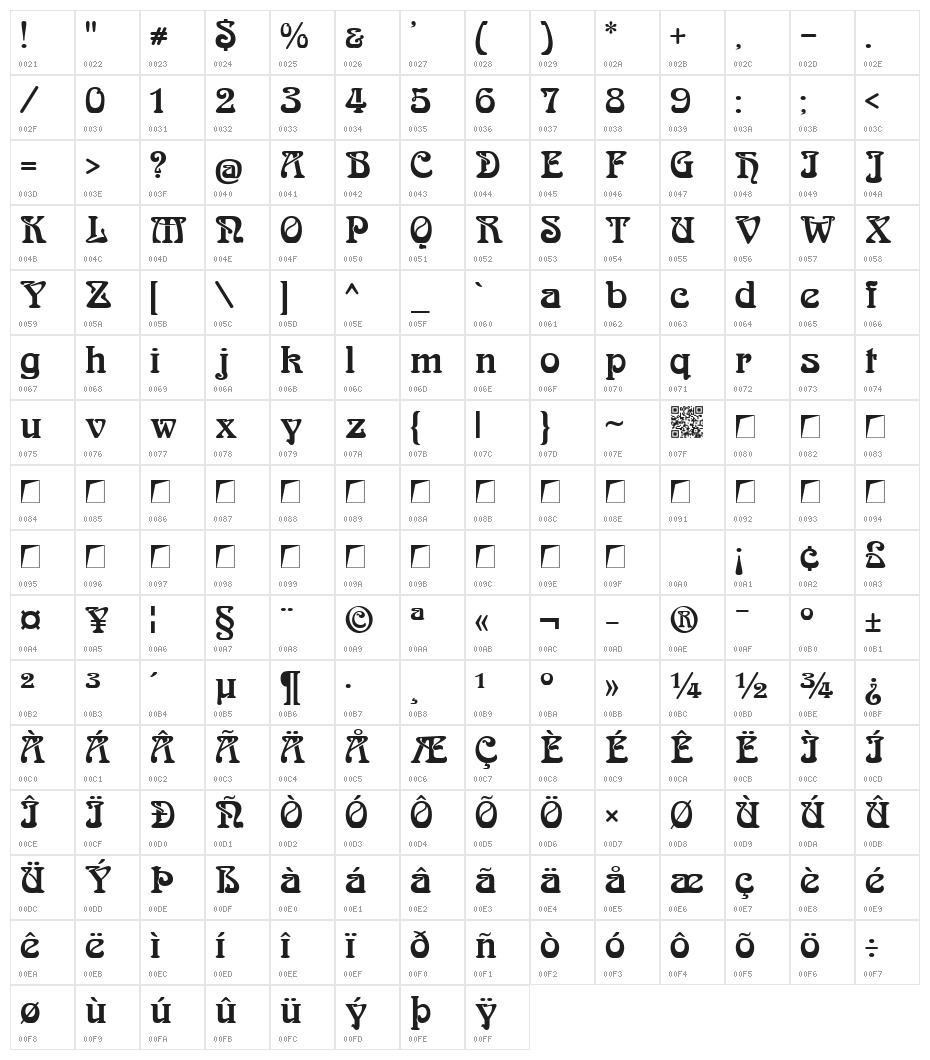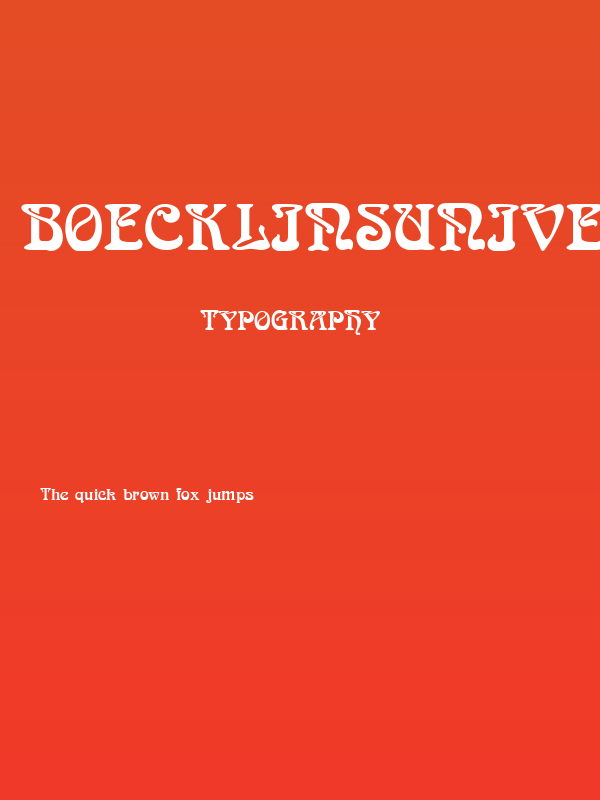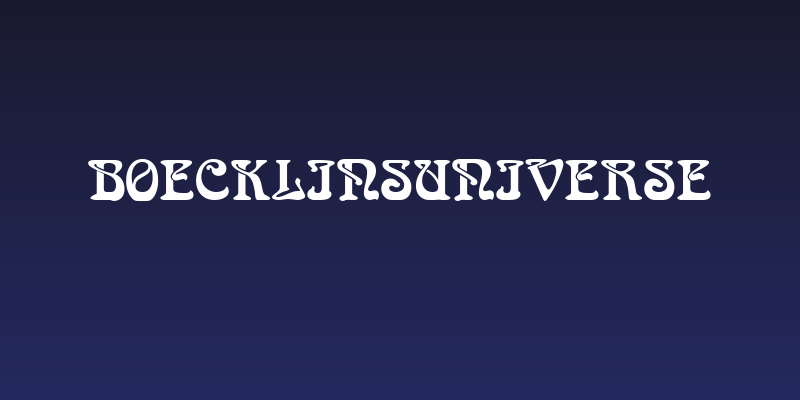
BoecklinsUniverse Font
✎ Art Nouveau
| Progetti proposti | Ideal for use in branding, posters, invitations, and any design project that seeks to evoke a sense of elegance and artistic expression. |